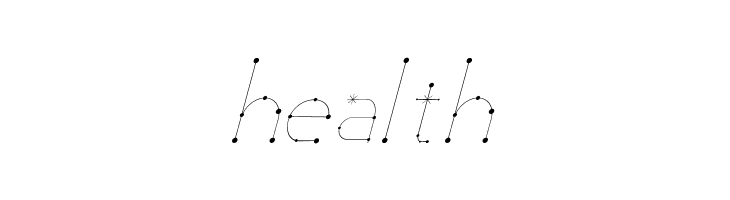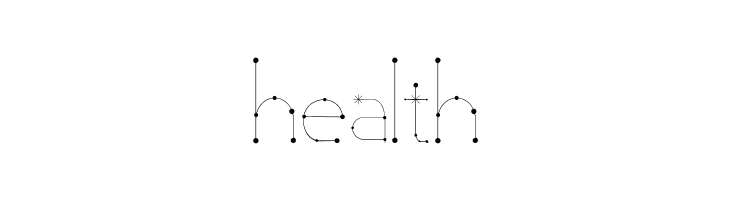
Elara Font
Font by Purva
A modern, geometric font with lines and dots creating a futuristic look.
Pat PaCool Font
Font by SvNProd
A playful, bold font with a hand-drawn, dynamic style.
Barrio Font
A playful, bold font with dynamic strokes and a hand-drawn feel.
PW Gothic Style Font